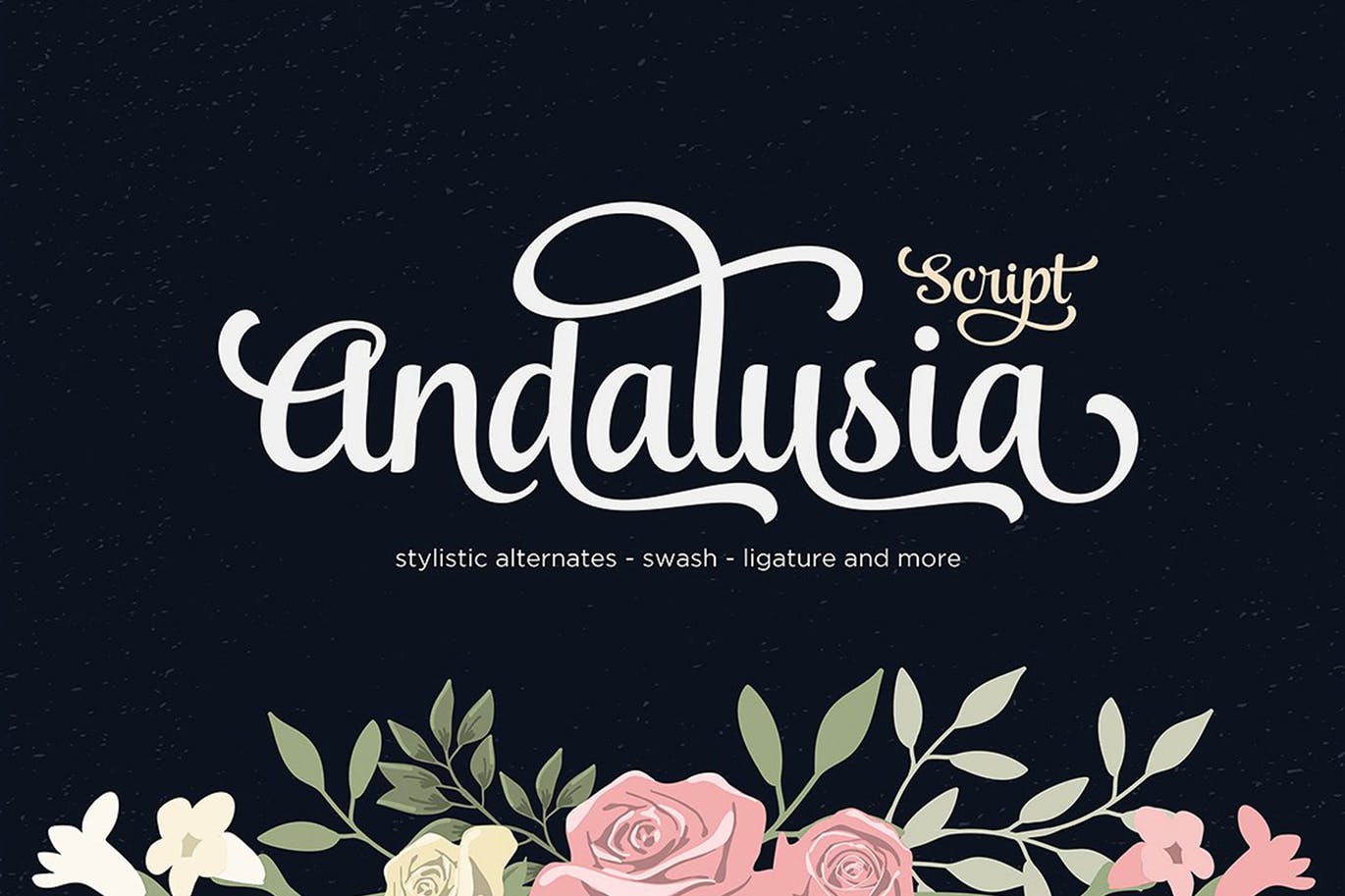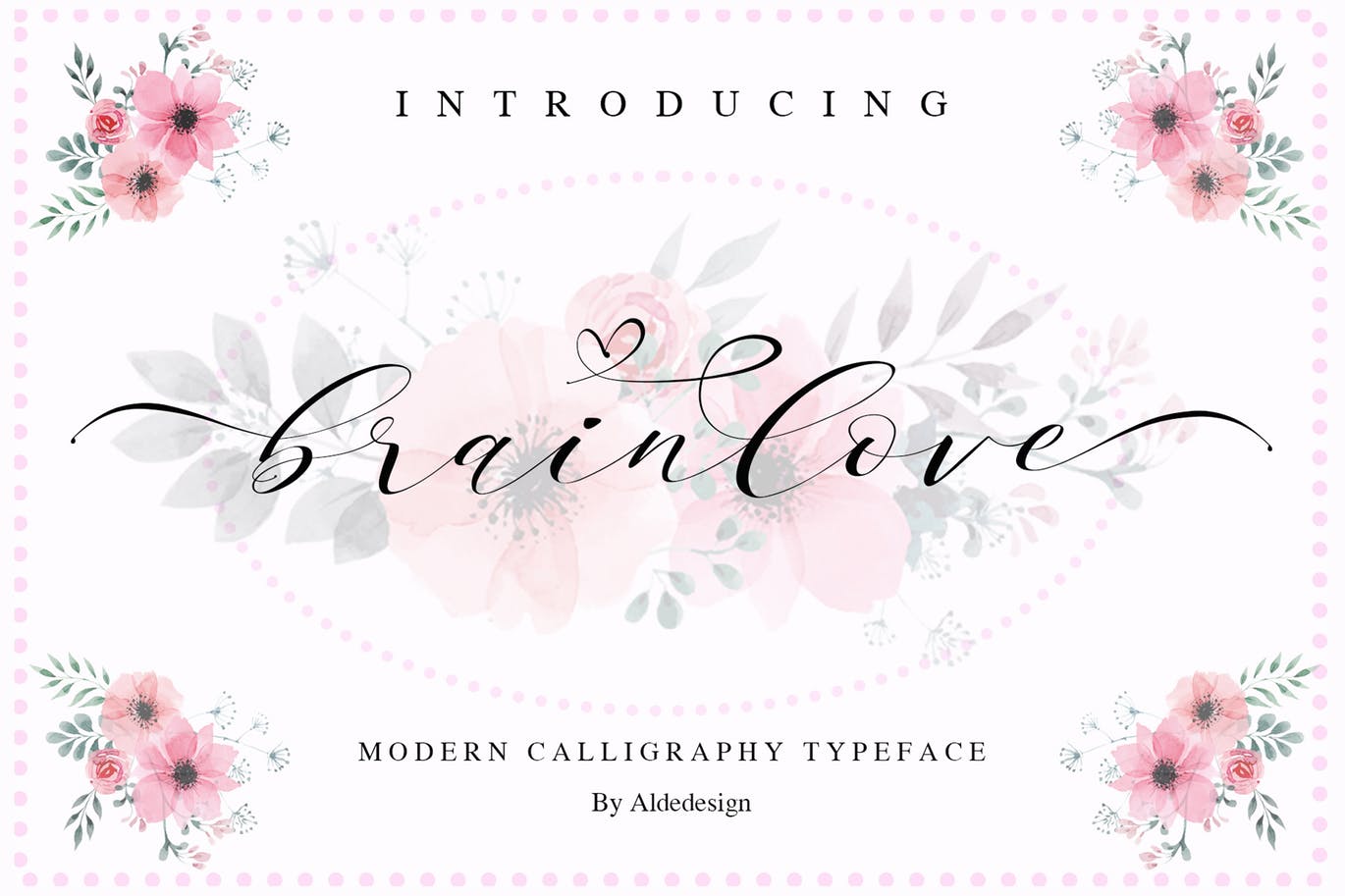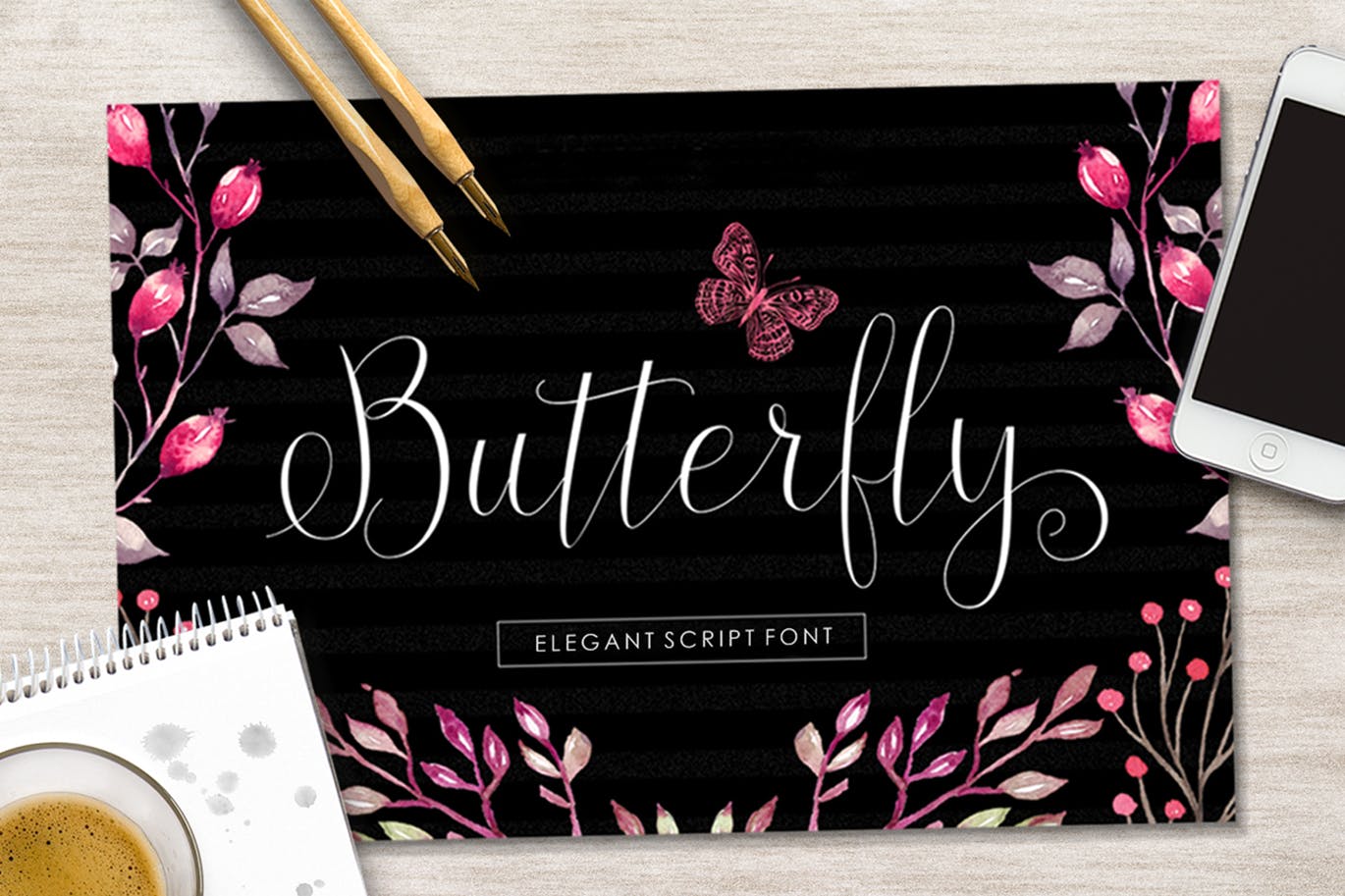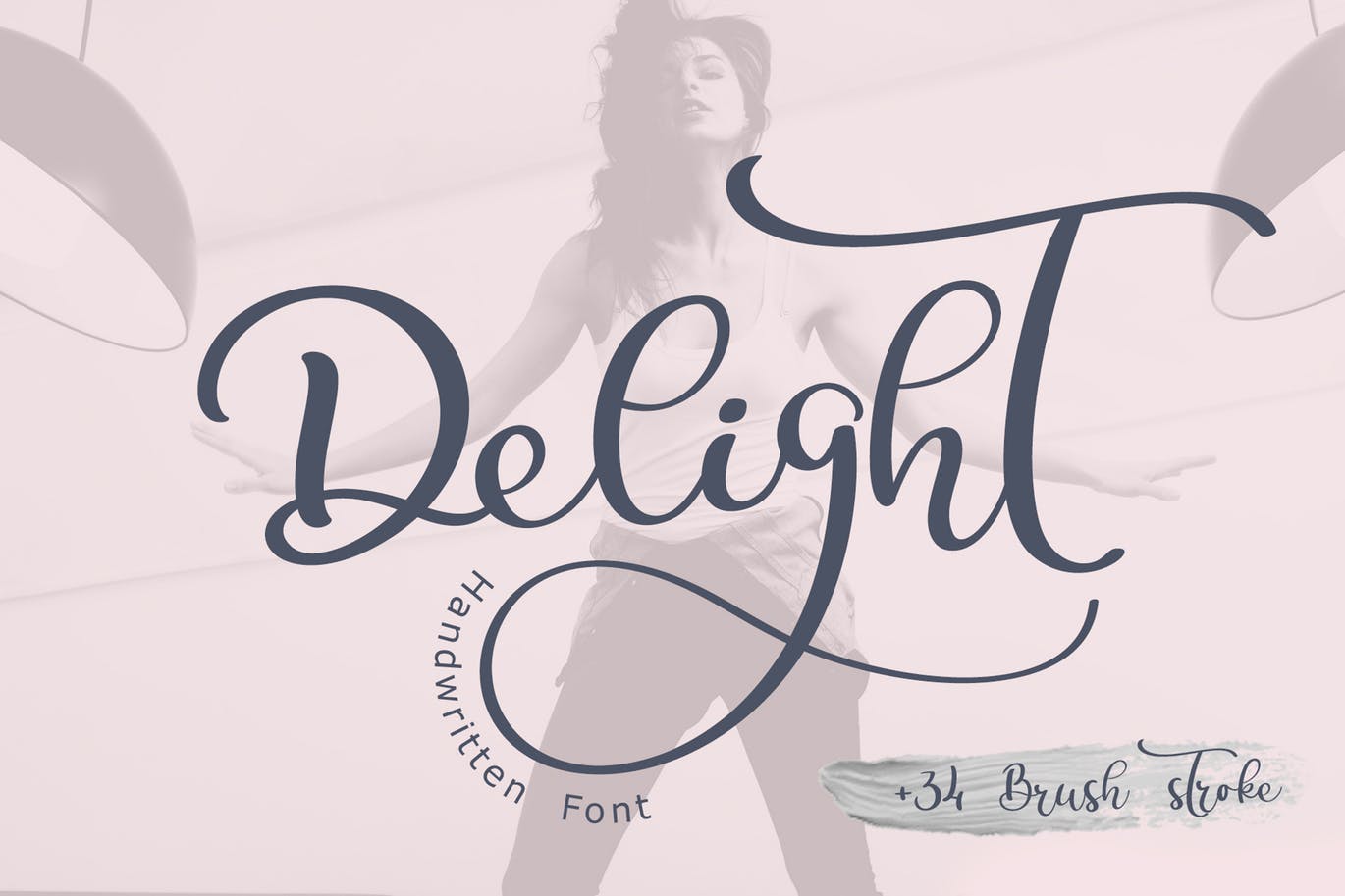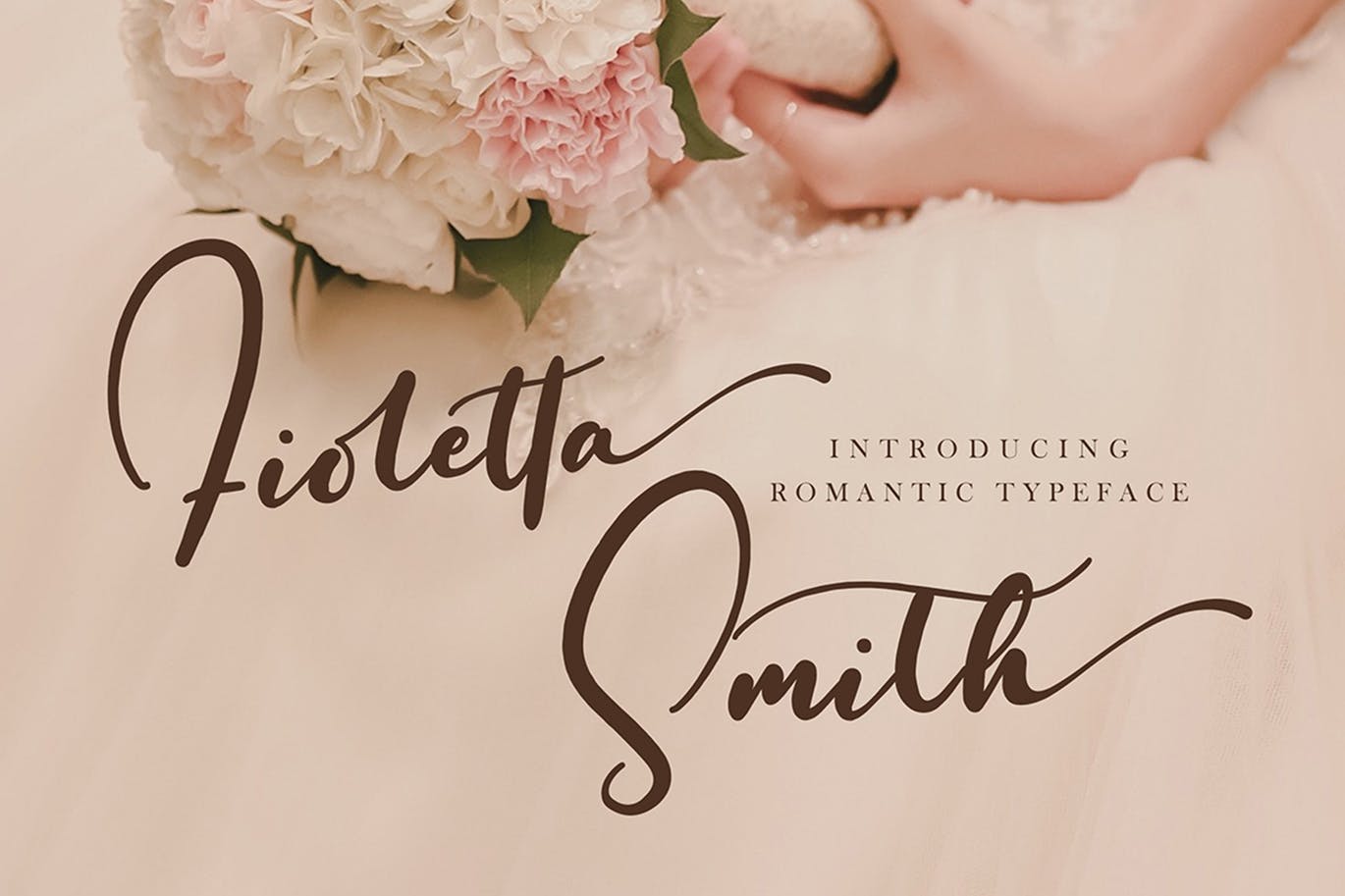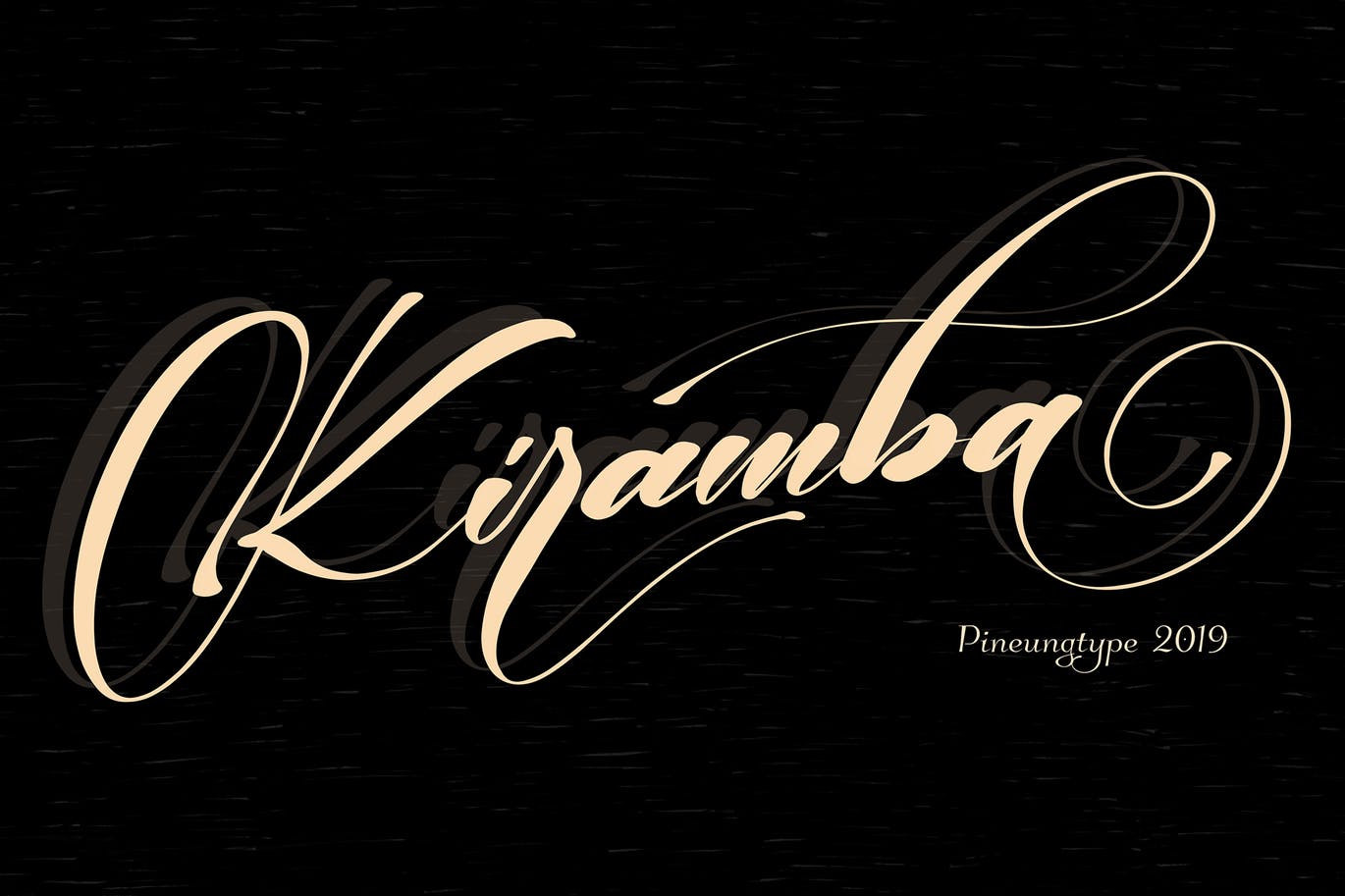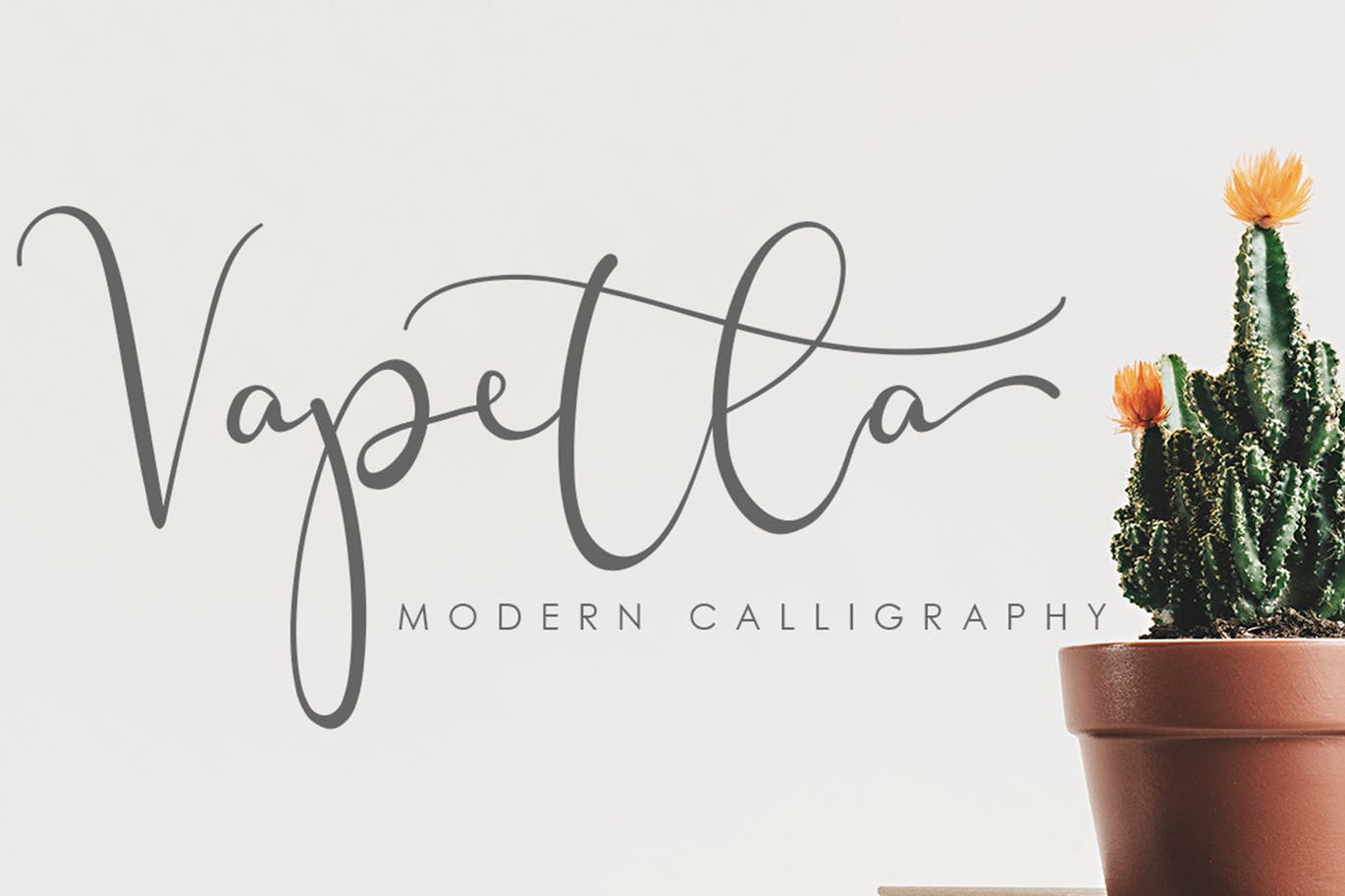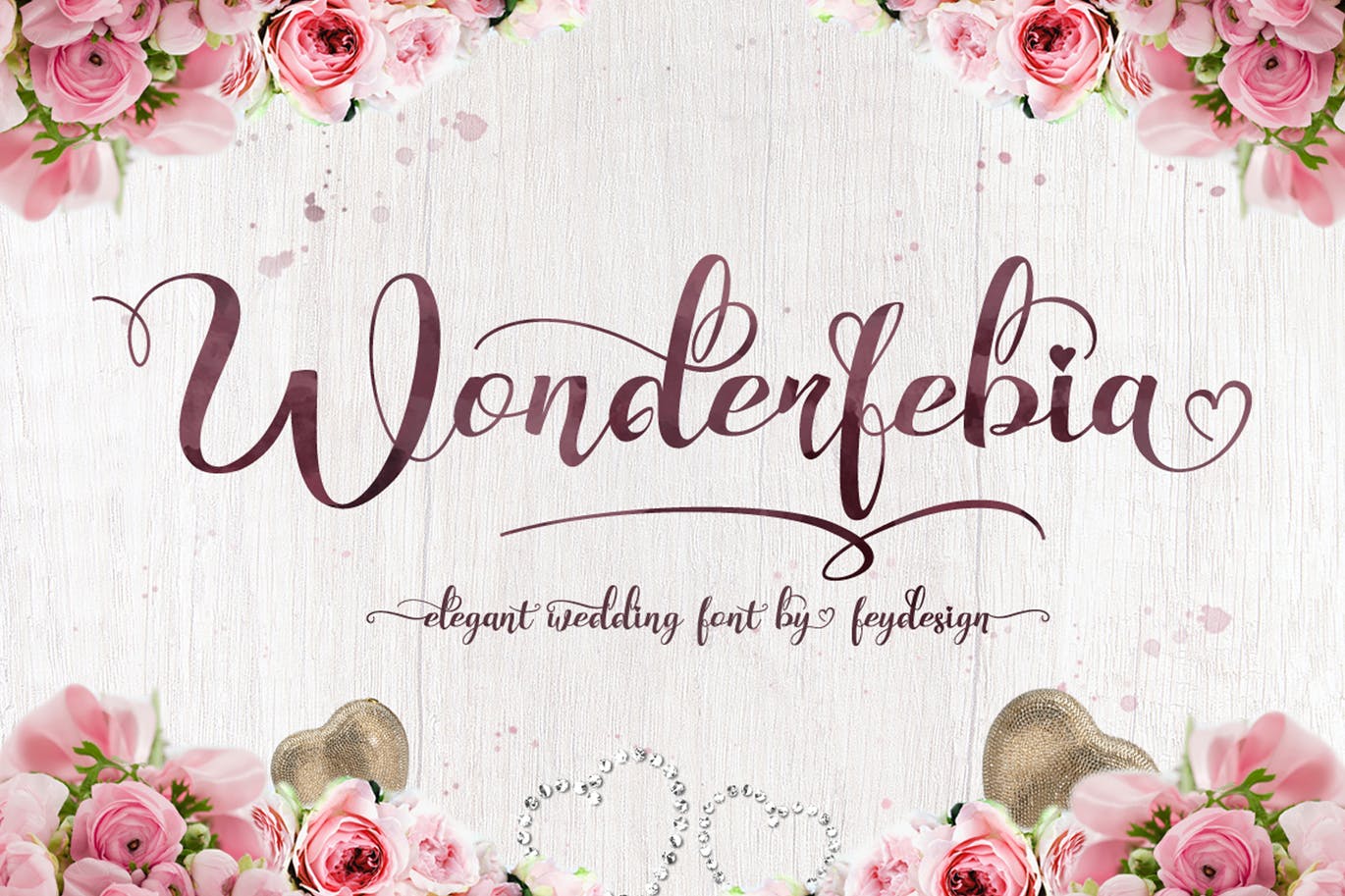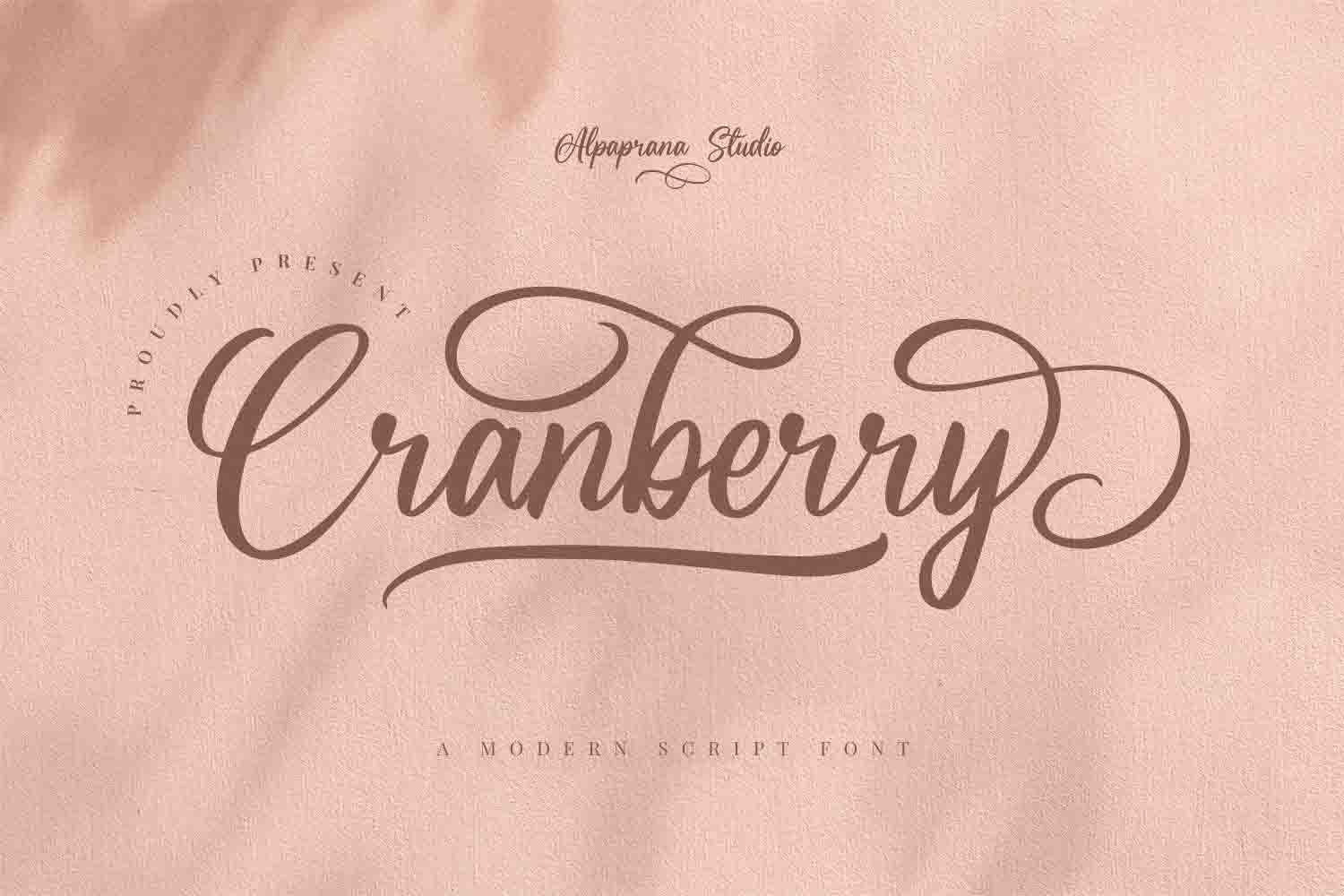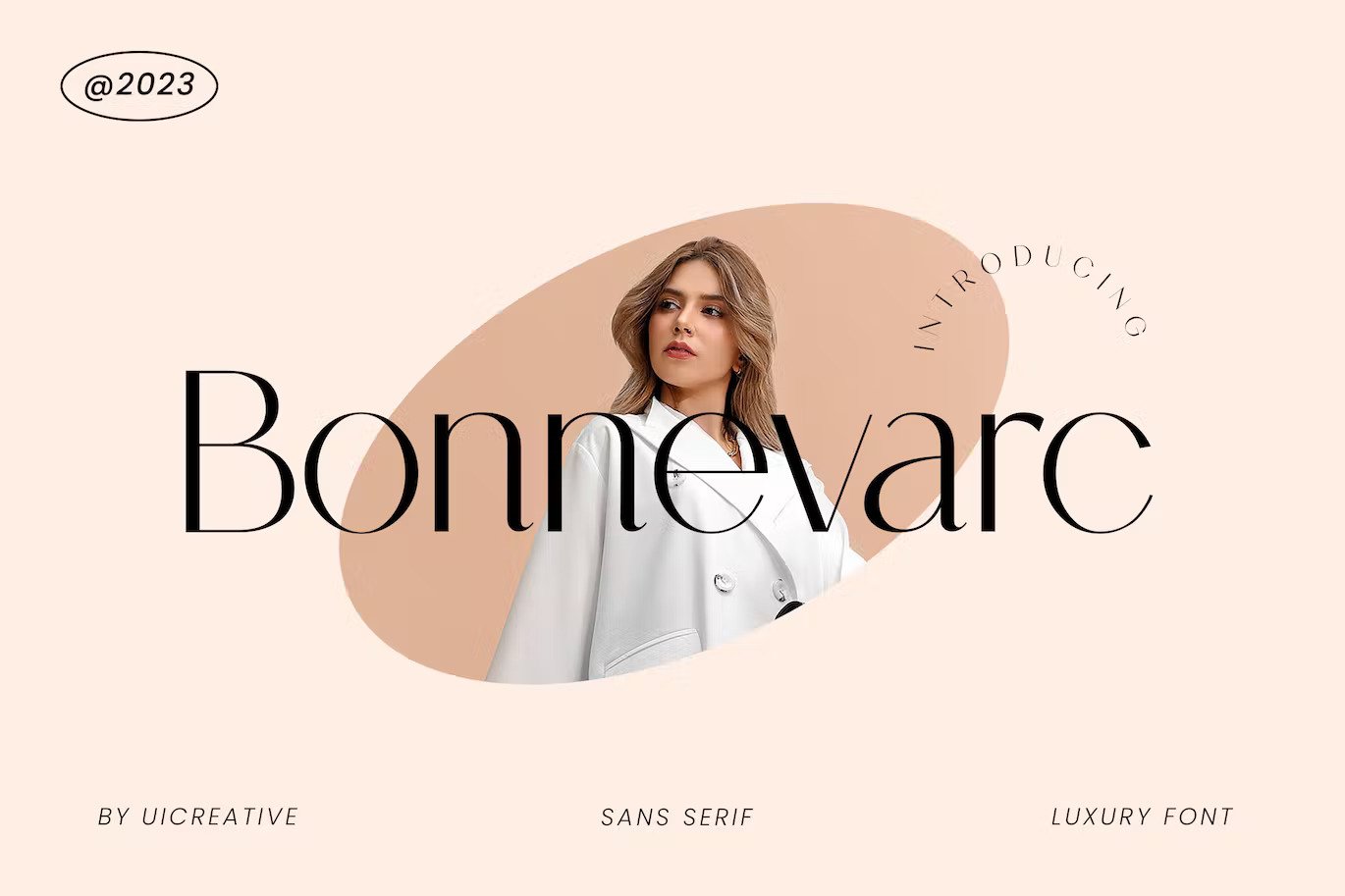
30+ Most Beautiful Wedding Fonts for a Breathtaking Event
One of the most special and delicate event is your wedding day. The right fonts and typography are important in setting the tone and mood for your wedding. It plays a much more important role than you think.
These fonts add personality and style and really reflect the mood of your event. The fonts you choose dictate the whole look of your design and also reflect the style and tone of your breathtaking event.
In this post we have done an handpicked investigation and add more as 30 beautiful and elegant wedding style fonts. Just taste them and collect to your wedding portfolio. The fonts are best for invitation card, quotes, logo, blog header, poster, banding, fashion, apparel, letter, stationery, etc…
Atlane Casual Serif Font
Say hi to Atlane a new casual serif font with a modern concept, beautiful swash and ligature and can easily be applied to your designs such as logos, personal branding or others.
Belindia is a beautiful and elegant script font. Its modern and classy look are perfect for logos, branding, invitations, social media posts and every other design that needs a handwritten touch.
Kiramba font with modern calligraphy style, this font will perfect for many different project ex: quotes, logo, blog header, poster, banding, fashion, apparel, letter, invitation, stationery, etc…
Pinkalova is handwritten script font with love and unique style. Suitable for design, element design, wedding, event, t-shirt, logo, badges, sticker, and awesome work, etc…
Sangria was built with OpenType features and includes beginning and ending swashes, numbers, punctuation, alternates, ligatures and it also supports other languages 🙂
Beradon Script is an elegant script font with more than 400 alternatives and a Bonus of 6 frames and 6 dividers.
The Anaheim font is built with OpenType features and includes swashes, numbers, alternates and ligatures. Share your thoughts on any subject worldwide with multilanguage support provided.
Rachella Script Free Typeface is suitable for Apparel Brand, Logotype, any greeting cards, Painting design style, or any design that needs natural and personal touch. Mix and match the alternate characters to add an attractive message to your design.
Setta Script Free Typeface features 244 glyphs and 69 alternate character contain with opentype features. Stylistic Alternates, Standart Ligature and more. You can access all those alternate characters by using OpenType savvy programs such as Adobe Illustrator, Adobe InDesign and CorelDraw X6-X7.
Novitha free bush script style font for a special events.
Brainlove Calligraphy is a stylish calligraphy font that features a varying baseline, smooth line, modern and with a depth love. For those of you who are need a touch of love and modernity for your designs or branding, it can be used for various purposes such as headings, wedding, invitation, signature, logos, branding, t-shirt, letterhead, signage, label, news, posters, badges etc.
Info / Download SourceAndalusia Script
Andalusia Script features 423+ glyphs and 160 alternate characters, ligatures, swash and multiple language support. To enable the OpenType Stylistic alternates, you need a program that supports OpenType features such as Adobe Illustrator CS, Adobe Indesign & CorelDraw X6-X7.
Info / Download SourceButterfly Script
Butterfly Script features OpenType stylistic alternates, ligatures and International support for most Western Languages is included. To enable the OpenType Stylistic alternates, you need a program that supports OpenType features such as Adobe Illustrator CS, Adobe Indesign & CorelDraw X6-X7, Microsoft Word 2010 or later versions.
Info / Download SourceWonderfebia – Script Wedding Font
It is Script Wedding Font with modern calligraphy style so much opentype feature include of the font.
Info / Download SourceAdore Calligraphy Font
Adore was built with OpenType features and includes beginning and ending swashes, alternate swash characters for most lowercase letters, numbers, punctuation, alternates, ligatures and it also supports other languages 🙂
Info / Download SourceMelvin and Emily Font Duo
Melvin and Emily is a modern calligraphy font with perfect serif pair. Both fonts includes multilingual support for Western and Central Europe. These are ideal for blog website, instagram, branding, invitations, business cards, weddings and many more.
Info / Download SourceBrilon Font + Extras
Brilon is an elegant serif font inspired by the Art Deco era. It perfectly represents vintage esthetics in a modern and minimalist way. The font includes special uppercase letters, alternate characters and beautiful ligatures. Furthermore it comes with 8 botanical photos which I used in this product presentation! The font is perfect for elegant logo design, packaging or invitation cards.
Info / Download SourceThe Lovestory Font Collection
Lovestory SVG Fonts are made by converting hand painted watercolour lettering , unchanged, including all its transparency and high resolution watercolour detail – into an actual font – as you type your letters out, it looks like you have just hand painted them.
Info / Download SourceMasterblush Font
This one should make your designs instantly professional and jaw-dropping! Masterblush includes start and end swashes. At least two for each lowercase character and you can even use them as swooshes. Be a perfect professional in a minute and start creating modern designs like ads, sales, logos, branding, posters, social media text overlays today!
Info / Download SourceRabusto Script – Free Font
Free elegant font Rabusto is great for creation of wedding invitations and built with OpenType features.
Download SourceThankfully Free Font
Thankfully is a free casual but elegant handwriten font, featuring a straightforward, classy and very beautiful character. It contains uppercase and lowercase letters, numbers, symbols, supports multilanguage.
Download SourceMarinto Free Font
Marinto is a free lovely modern calligraphy script font. It contains uppercase and lowercase letters and some swashes. This font perfectly fits for labels, badges, hancrafted designs, social media, packaging apparel and much more.
Download SourceCalligraphy Wedding Decor Font Delight
You can see beautiful holidays and wedding handwritting calligraphy font Delight. Unique handmade calligraphic font Delight is best for many holiday goals: calligraphy invitation on wedding, anniversary, birthday and other.
Info / Download SourceAnniversa Wedding Font
Anniversa is wedding font with modern calligraphy style, suitable for design, element design, wedding, event, t-shirt, logo, badges, sticker, and awesome work, etc…
Info / Download SourceVapetla
Vapetla is modern script font. With modern script style this font will perfect for many different project ex: quotes, blog header, poster, wedding, branding, logo, fashion, apparel, letter, invitation, stationery, etc.
Info / Download SourceBiancha Script
Introducing our latest product Biancha Script! Connecting script, designed to convey elegance and style. It is slender, feminine and friendly. Biancha is perfect for fashion, e-commerce brands, trend blogs, or any business that wants to appear classy and chic.
Info / Download SourceRavensara Sans | 7 Fonts
Ravensara Sans is display font family with 7 weights, from Thin with no contrast to Black with hightest contrast. Style of font family originates in a classic didone, but made a step to simplify and modernize some letter forms and make didone feel more contemporary.
Info / Download SourceFioletta Smith
Fioletta Smith modern script font with modern style, this font will perfect for many different project ex: quotes, logo, blog header, poster, wedding, banding, fashion, apparel, letter, invitation, stationery, etc…
Info / Download SourceBellaluna
Bellaluna modern script font with modern style, this font will perfect for many different project ex: quotes, logo, blog header, poster, wedding, banding, fashion, apparel, letter, invitation, stationery, etc…
Info / Download SourceAthalia – Modern Calligraphy Script
Introducing, Athalia, a lovely modern script that bring luxury feel. The natural hand writing script is suitable for you who needs a typeface for headline, logotype, apparel, invitation, branding, packaging, advertising etc. This typeface is comes in uppercase, lowercase, punctuations, symbols & numerals, stylistic set alternate, ligatures, etc also support multilingual.
Info / Download SourceBoutinela Script
Boutinela Script come with 740+ glyphs. The alternative characters were divided into several Open Type features such as Swash, Stylistic Sets, Stylistic Alternates, Contextual Alternates. The Open Type features can be accessed by using Open Type savvy programs such as Adobe Illustrator, Adobe InDesign, Adobe Photoshop Corel Draw X version, And Microsoft Word.
Info / Download SourceAuthenia Textured
Authenia has two sets of lower cases to give some variation and more natural look to your text. You can enable Contextual Alternates on OpenType panel to make these two sets vary randomly. It also has a bunch of stylistic alternates and underlines that makes your text and design even more appealing.
Info / Download SourceMaghody Script
Maghody is a script typeface with bold and strong natural movement, this font is great for your various amazing project.
Info / Download SourceStephen & Gillion – Signature Script
Stephen & Gillion is signature script with three style that contain stylistic alternate, swash, etc to create your own customized signature or logo design. Stephen & Gillion is a signature font that you can use to make a logo for branding, beautiful fashion design, suitable for wedding invitation, or handwritten quote. Come with heart-shaped connector! Also already PUA Encoded.
Cindelia is modern script font, every single letters have been carefully crafted to make your text looks beautiful. With modern script style this font will perfect for many different project ex: quotes, blog header, poster, wedding, branding, logo, fashion, apparel, letter, invitation, stationery, etc.